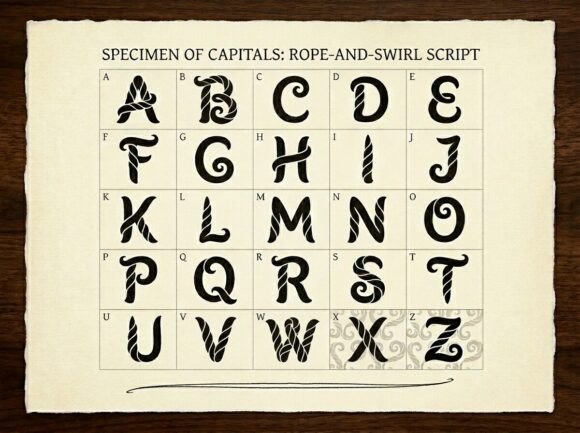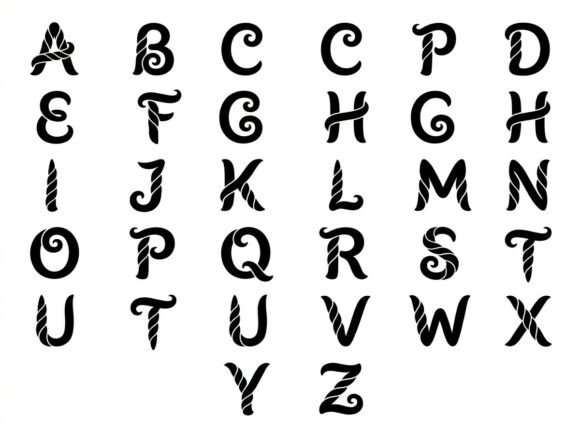
Set Sail with Delta Font: The Ultimate Maritime Typeface
Are you looking for a font that captures the essence of the sea? Do you want to evoke a sense of luxury, adventure, and rugged charm in your designs? Look no further than Delta Font, an ornate display typeface that combines classic serif structure with the rough-hewn appeal of seafaring heritage.
The Inspiration Behind Delta Font
Delta Font draws inspiration from the golden age of sailing, when sturdy vessels traversed the world’s oceans and seafaring was a symbol of power, freedom, and exploration. The font’s creator aimed to distill the spirit of this era into a unique typeface that would transport designers and their audiences to the high seas.
Design Features of Delta Font
Delta Font boasts bold, high-contrast letterforms where the stems are artfully transformed into textured, twisting rope motifs. This innovative design element adds an industrial touch to the font, setting it apart from more traditional serif typefaces. The combination of smooth, sweeping swashes and rugged cordage details creates a visually striking effect that is both elegant and attention-grabbing.
Perfect for Coastal Branding and Maritime-Themed Designs
Delta Font is tailor-made for designers looking to create coastal branding, yacht club logos, premium seafood packaging, and maritime-themed editorial headers. Its distinctive style and artisanal charm make it an exceptional choice for:
- Harbor resorts and boutique hotels seeking to evoke a sense of luxury and seafaring prestige
- Nautical brands and sailing companies looking for a bold, eye-catching typeface
- Seafood restaurants and gourmet food packaging requiring a touch of elegance and sophistication
- Maritime-themed publications and editorial content seeking to transport readers to the ocean’s edge
Key Benefits of Using Delta Font
Delta Font offers several benefits to designers and crafters, including:
- Unique and distinctive style: Delta Font’s blend of classic serif structure and rugged rope motifs sets it apart from more traditional typefaces.
- Elegance and sophistication: The font’s smooth swashes and high-contrast letterforms evoke a sense of luxury and refinement.
- Versatility: Delta Font can be used for a wide range of design applications, from coastal branding to editorial headers.
- Artisanal charm: The font’s textured, hand-crafted feel adds a touch of warmth and authenticity to designs.
Tips for Using Delta Font Effectively
To get the most out of Delta Font, consider the following design tips:
- Use it sparingly: Delta Font’s bold, attention-grabbing style is best used in moderation. Use it for headlines, titles, or key design elements to create visual impact.
- Pair it with complementary fonts: Combine Delta Font with simpler, sans-serif typefaces to create visual contrast and add depth to your designs.
- Experiment with colors and textures: Take advantage of Delta Font’s textured, rope-like motifs by incorporating nautical colors and materials into your designs.
Delta Font is a game-changing typeface that brings the rugged charm of seafaring heritage to the world of design. Its unique blend of classic serif structure and industrial cordage details makes it an exceptional choice for coastal branding, yacht club logos, premium seafood packaging, and maritime-themed editorial headers. Whether you’re a designer, crafter, or simply a lover of the sea, Delta Font is sure to inspire your next creative project.